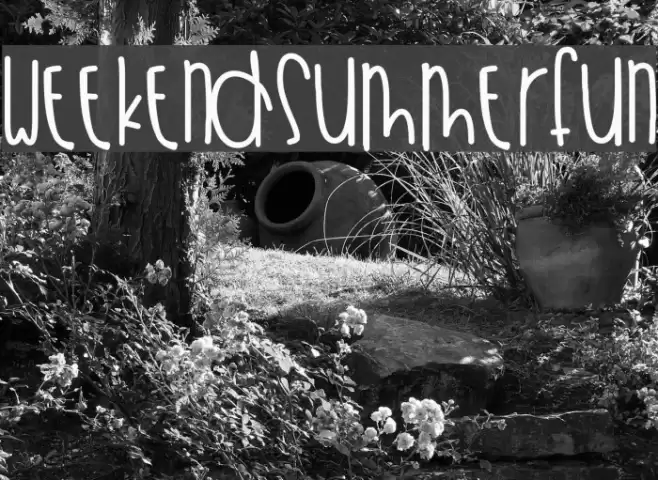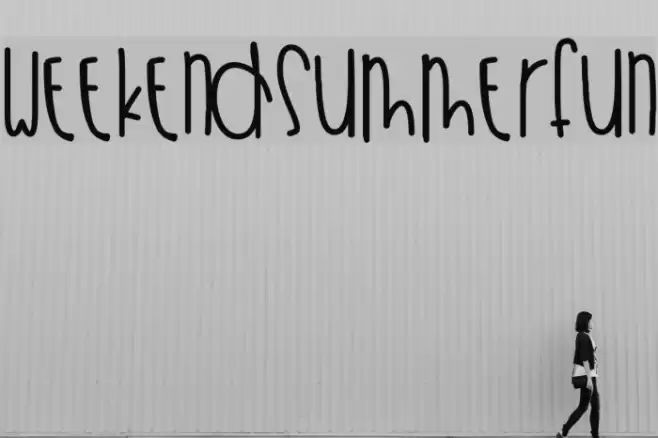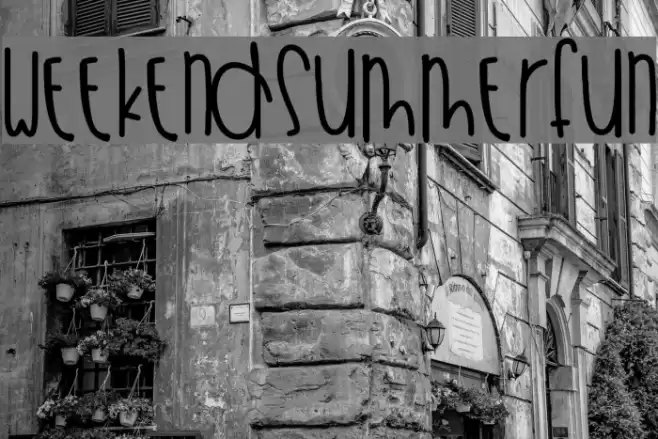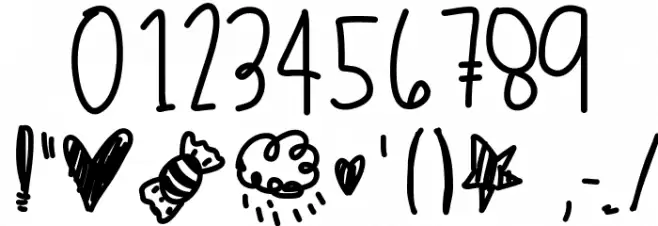
WeekendSummerFun Font
WeekendSummerFun Description
This playful and whimsical font features a hand-drawn style with a casual and informal appearance. The letters are tall and narrow, with a consistent stroke width that gives them a uniform look. The uppercase and lowercase letters share a similar height, contributing to the font's quirky charm. The numbers are rounded and maintain the same playful aesthetic. Special characters are creatively designed, adding to the font's unique personality. This font is perfect for projects that require a fun and lighthearted touch.
A playful, hand-drawn font with a whimsical and informal style from Handwritten fonts.
- Proposed Projects: Ideal for children's books, greeting cards, playful branding, and casual invitations.